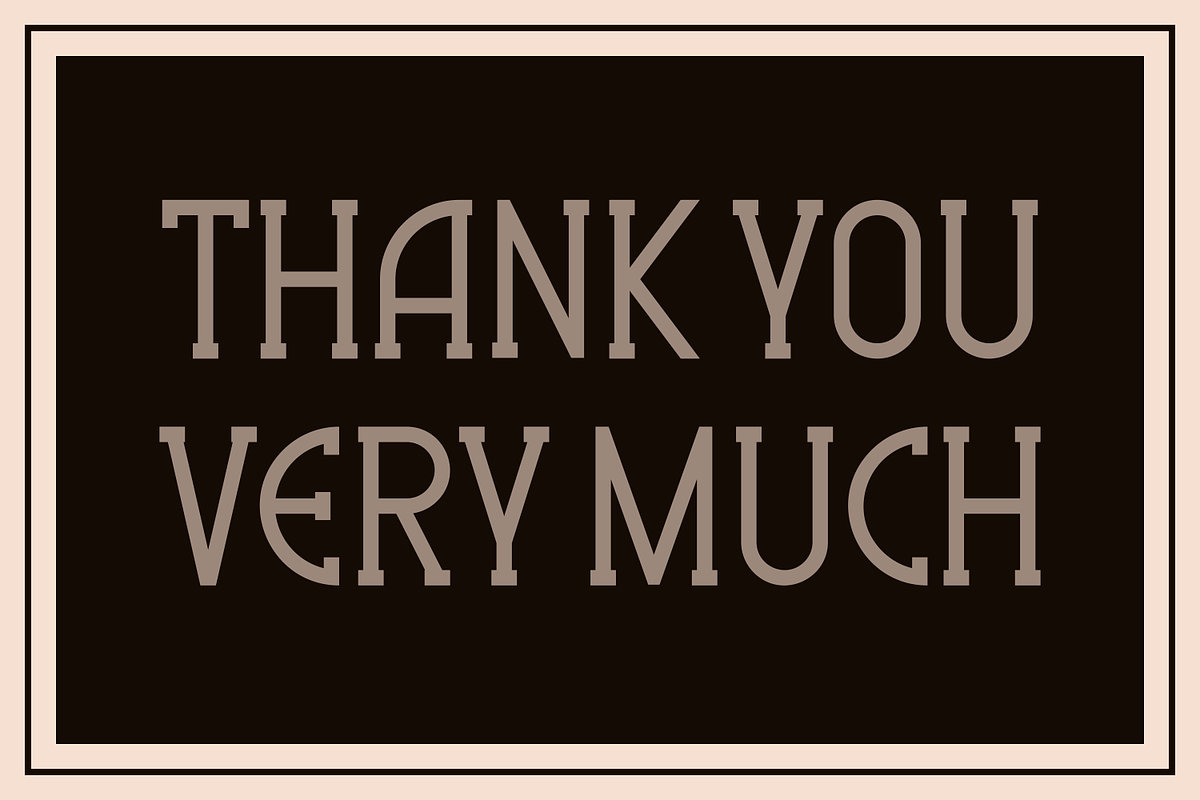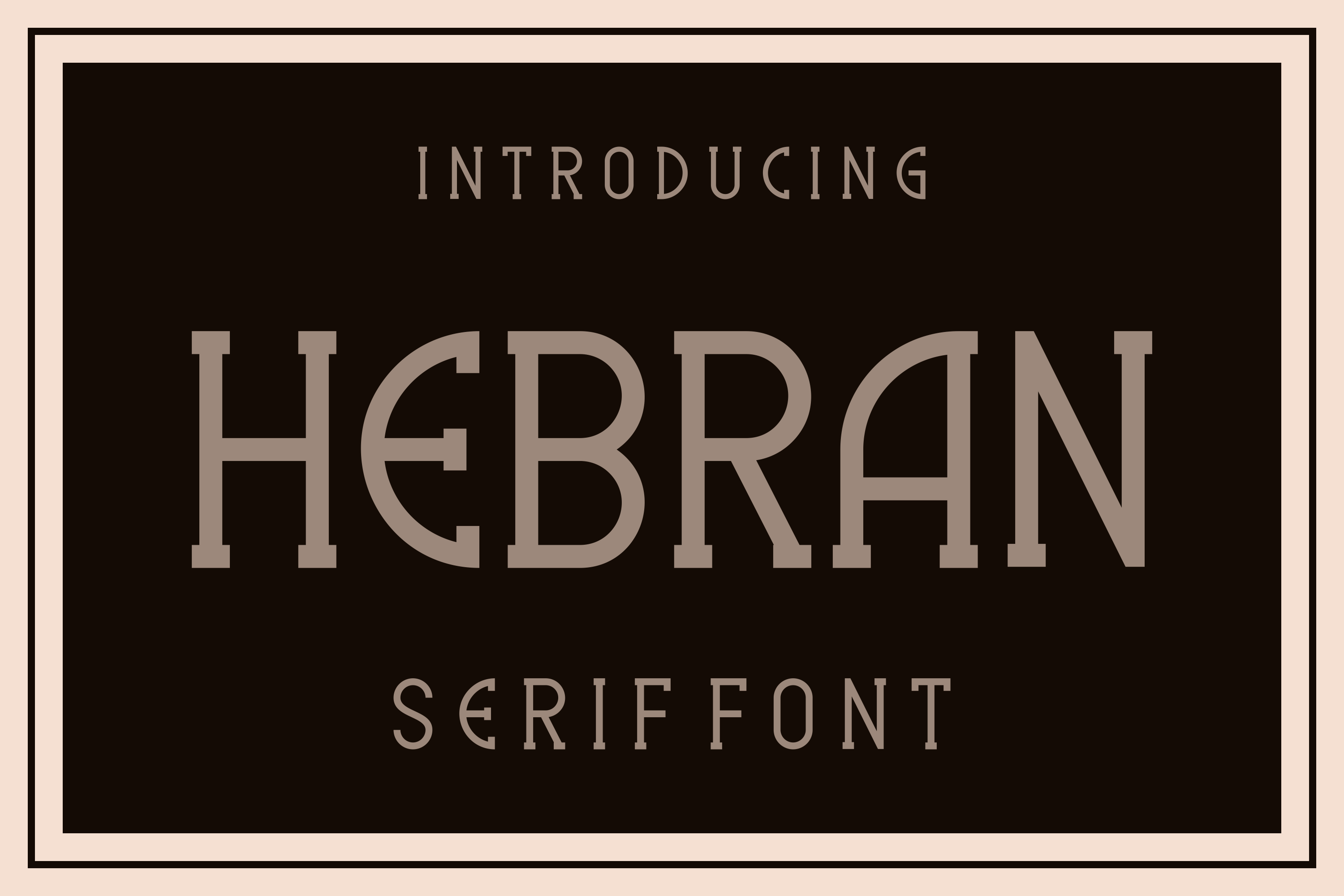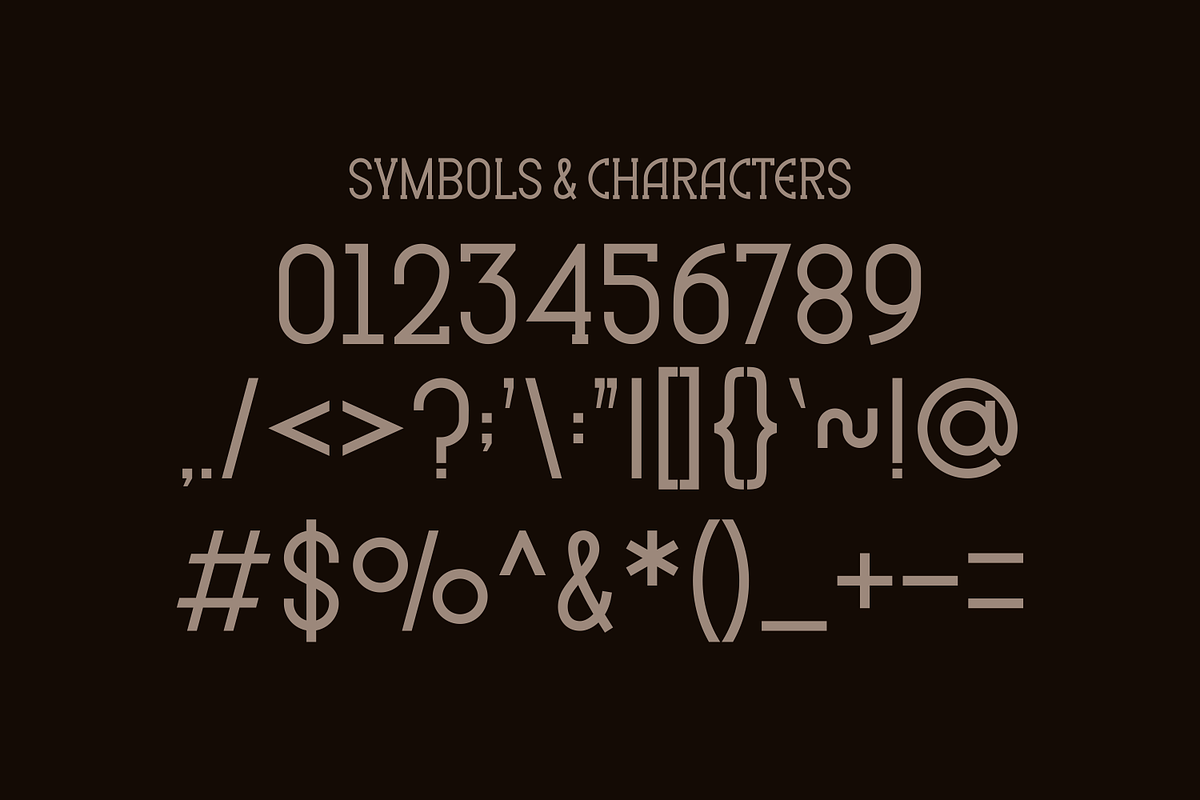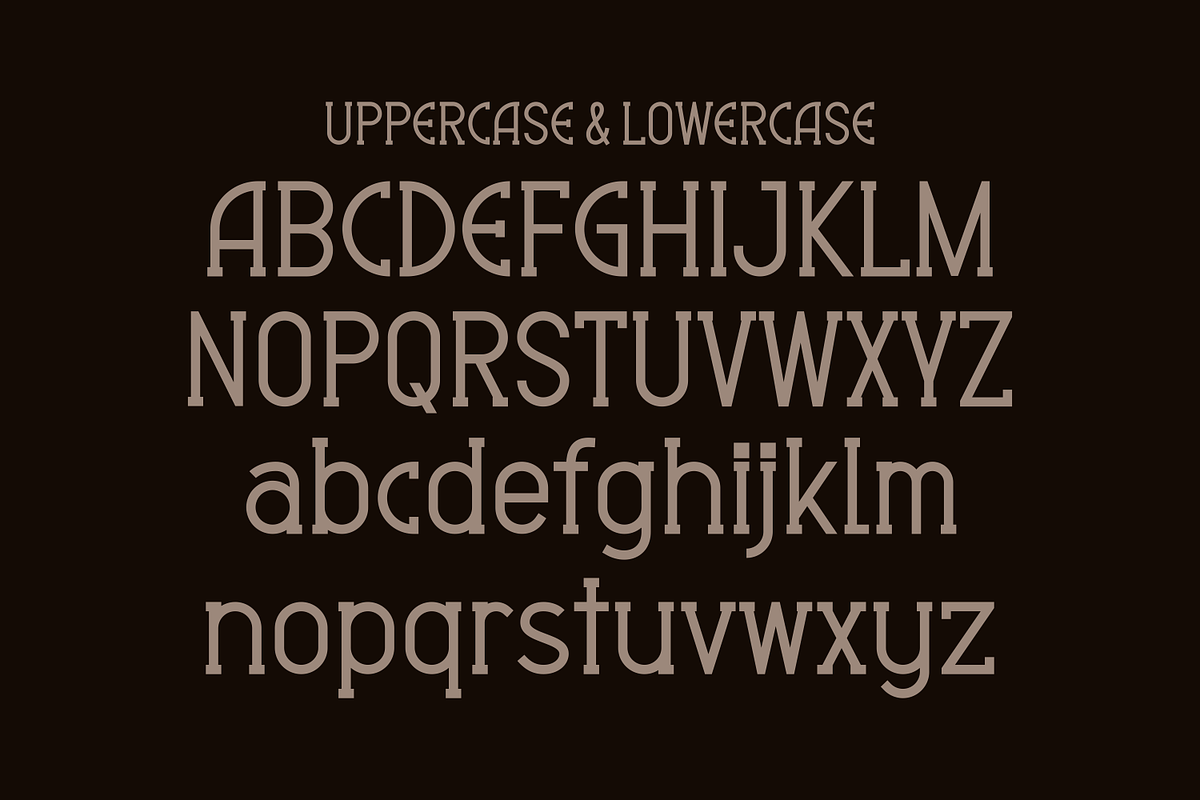
Hebran - Serif Font
Hebran - Serif Font Perfectly suited on print/screen. it’s perfect for Branding, name card, poster, logo, magazine, cover, banner, t-shirt and headers, or even large-scale artwork.